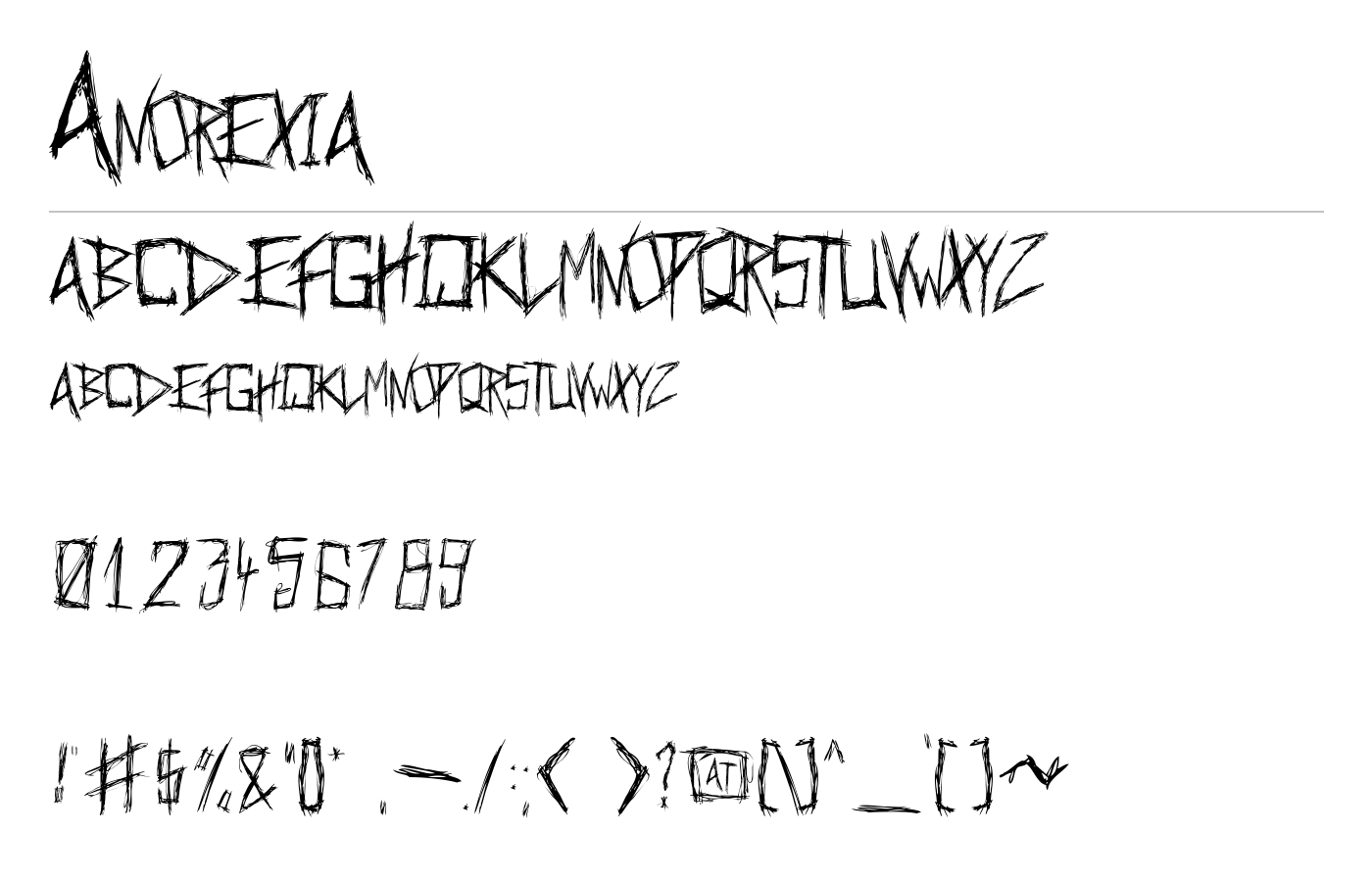
Anorexia is an edgy, distressed sans serif font with a narrow, angular structure and sharp, jagged strokes that create a raw, chaotic texture. Its tall, condensed letterforms and irregular, scratchy lines give it a gritty, unsettling vibe, making it ideal for horror, punk, or alternative-themed designs needing a highly expressive and rebellious look. This font works best in headlines and logos where dramatic impact and unique personality are key, rather than in body text due to its intense visual complexity.
Anorexia Font
About Anorexia Font
| Designer | Fiona Clarke 'Dead Duckling' |